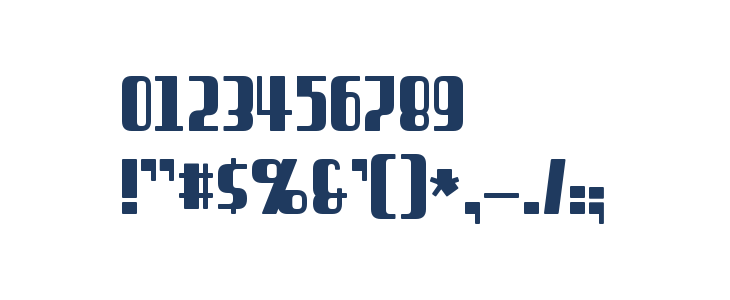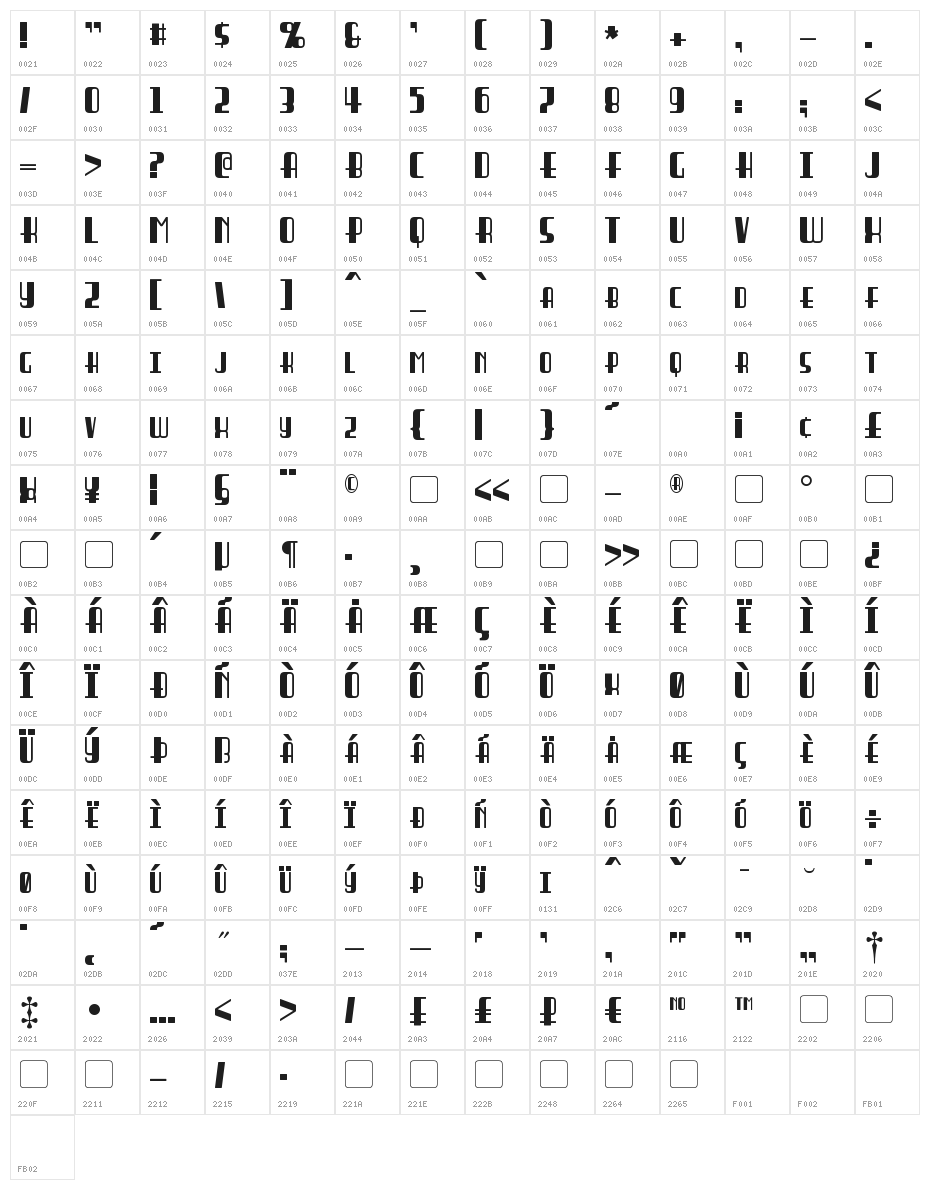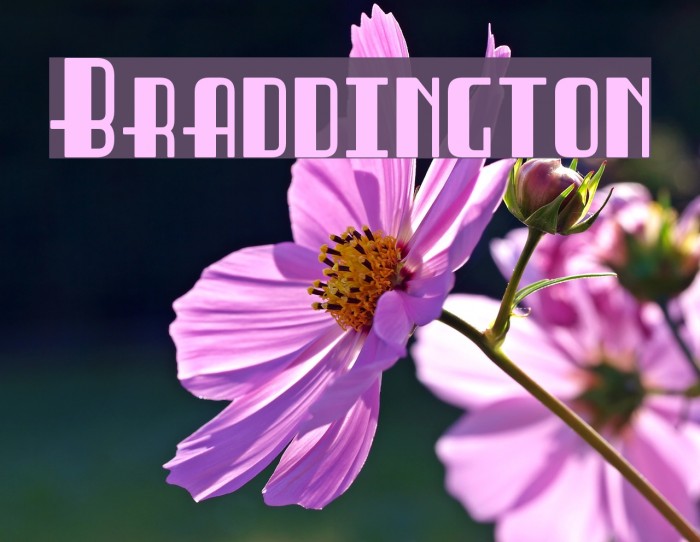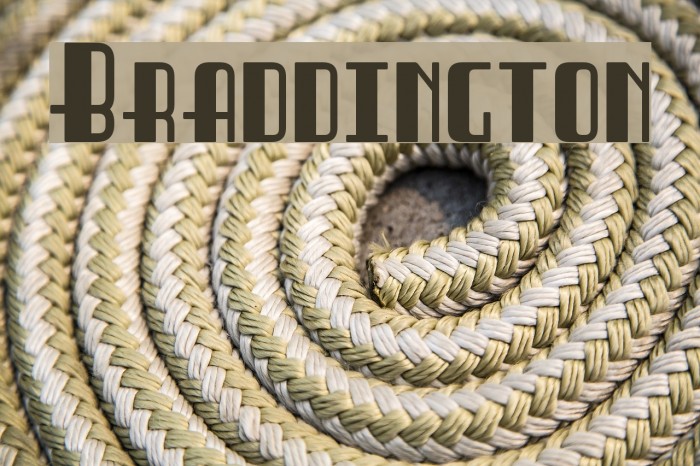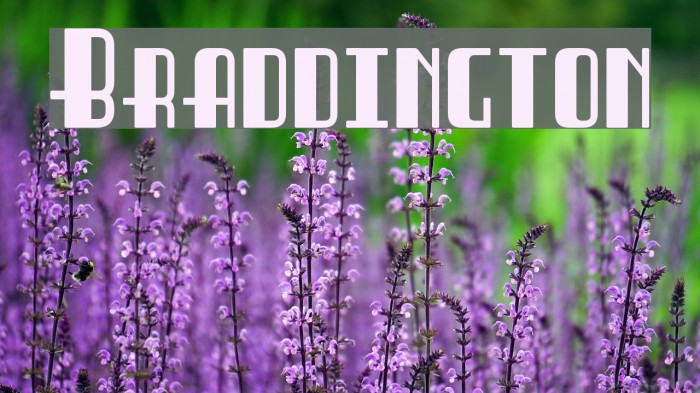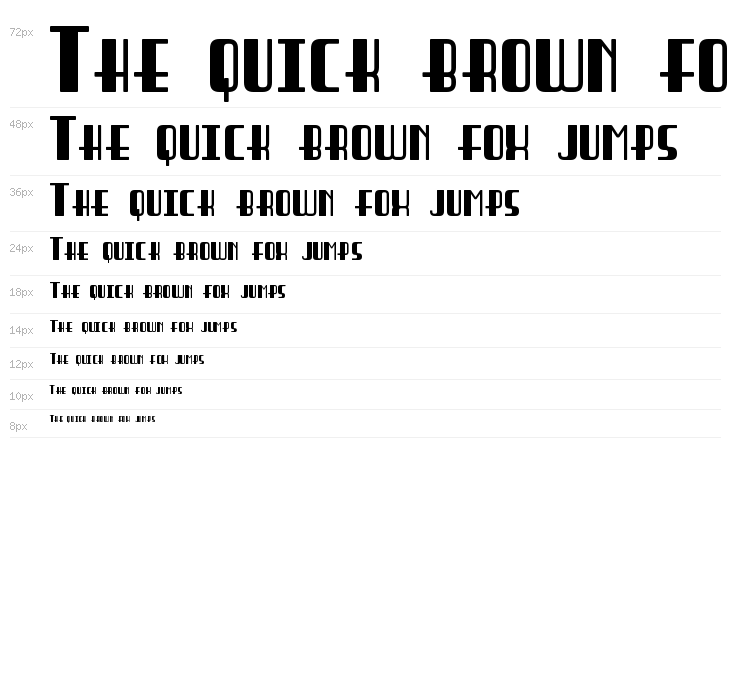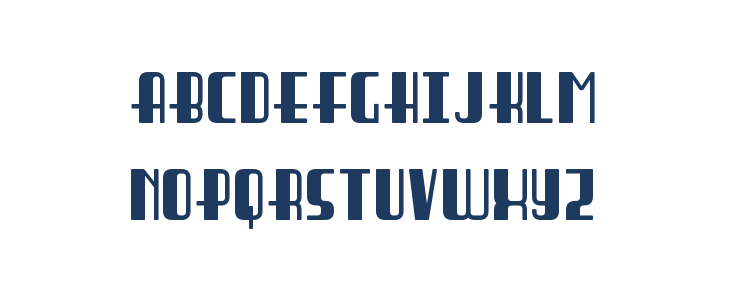
Braddington Font
Braddington Description
This font features a bold, geometric design with a strong emphasis on vertical and horizontal lines. The characters are constructed with a mix of thick and thin strokes, creating a dynamic and modern appearance. The uppercase letters are particularly striking, with unique cutouts and angles that give the font a distinctive, futuristic feel. The lowercase letters maintain the same geometric style, ensuring consistency throughout the typeface. Numbers and special characters are designed to match the bold and structured aesthetic, making this font versatile for various applications. The overall design is both eye-catching and functional, suitable for projects that require a modern and impactful look.